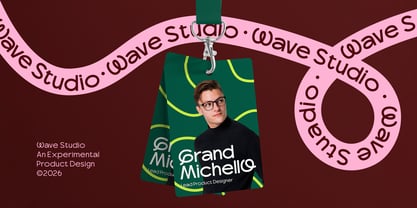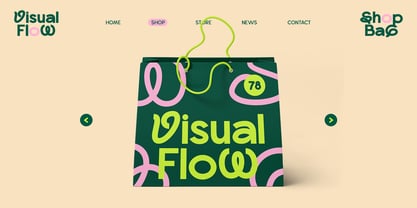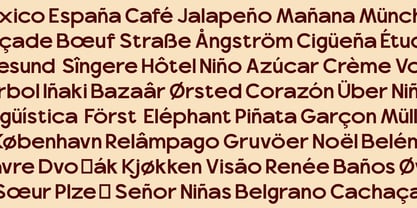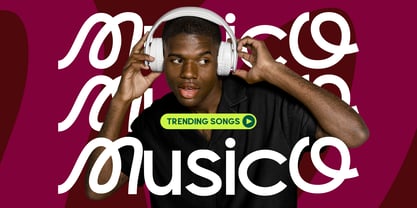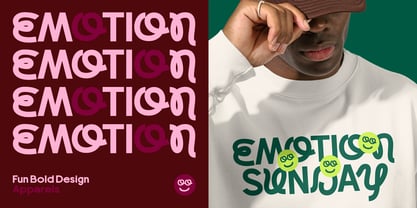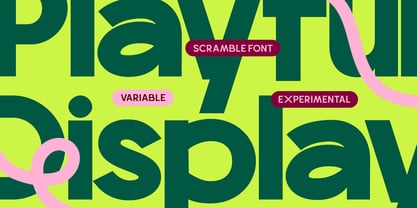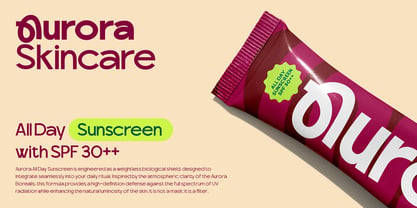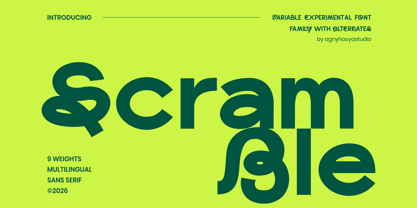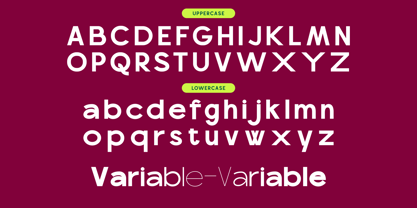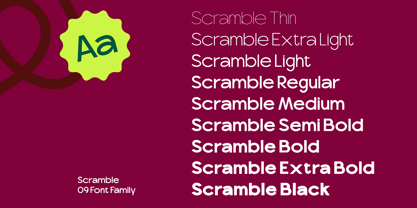
Scramble
Looking for a Variable Experimental Sans Serif Font for Bold Branding, Logos, and Packaging?
Meet Scramble, a variable experimental sans serif font family made for bold logos, packaging, editorial headlines, streetwear graphics, and modern visual identities.
With solid geometric construction, playful curves, unexpected cuts, and expressive alternate letterforms, Scramble brings clean structure and bold personality into your typography.
Built with 18 static font styles, weights from Thin to Black, coordinated slanted styles, and variable weight and slant controls, Scramble gives you a flexible type system for designs that need movement, rhythm, and a custom-made visual voice.
Perfect for projects that need to feel modern, expressive, experimental, dynamic, and impossible to ignore.
Perfect For
• Modern logos and visual identities
• Product packaging and label design
• Editorial headlines and magazine layouts
• Fashion and streetwear campaigns
• Music artwork and event posters
• Startup branding and creative agency visuals
• Food, beverage, and café identities
• Skincare and lifestyle packaging
• Social media graphics and digital campaigns
• Merchandise, apparel, and promotional design
• Web banners and digital advertising
• Bold display typography and brand systems
What Makes It Stand Out
Scramble combines a clean sans-serif structure with playful experimental details, giving you a strong balance of readability, personality, and visual impact.
Move smoothly from refined Thin typography to powerful Black headlines, or add extra energy through its coordinated slanted styles and variable slant controls.
Its expressive uppercase alternates help logos, headlines, and campaign visuals feel more custom without requiring extensive manual lettering.
This makes Scramble a strong choice for designers, branding studios, fashion labels, packaging designers, music creatives, startup teams, Canva creators, and creative businesses that need a flexible experimental sans serif font with commercial usability.
Font Features
• 18 static font styles
• Weights from Thin to Black
• Coordinated slanted styles
• Variable weight and slant controls
• Expressive uppercase alternates
• Uppercase and lowercase characters
• Numerals and punctuation
• OpenType features and PUA encoded
• Multilingual support
Bring a sharper, more expressive visual voice to your next logo, packaging, poster, editorial layout, or digital campaign with Scramble.